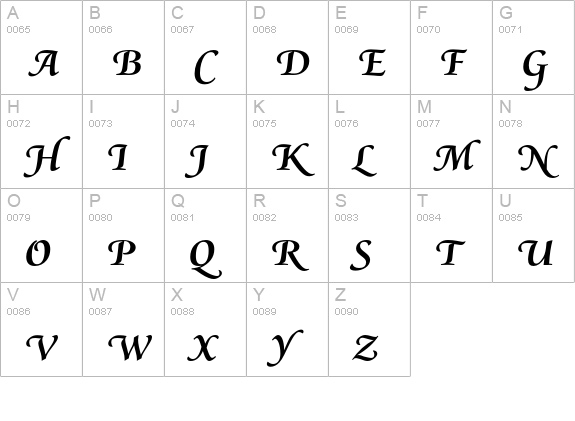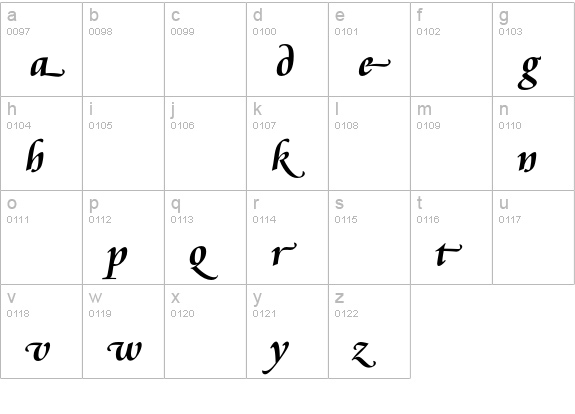
Cataneo Bold Swash Font Details
Cataneo Bold Swash is a strong, high-contrast variant in the Cataneo typeface family \xE2\x80\x94 well suited to headlines, attention-grabbing titles, and strong calls-to-action.
Cataneo Bold Swash is a striking and elegant font that exudes sophistication and charm. With its bold and distinctive swashes, this font is perfect for adding a touch of flair to any design project. The strong, yet graceful letterforms make Cataneo Bold Swash ideal for headlines, titles, and other prominent text elements. The contrast between thick and thin strokes creates a sense of drama and visual interest, making this font a versatile choice for both print and digital applications. And the best part? Cataneo Bold Swash is available for free download at FontsMarket.com! Whether you're a designer looking to add a touch of luxury to your creations or a business owner in need of a stylish branding solution, Cataneo Bold Swash is sure to make a lasting impression. Download this exquisite font today and elevate your designs with its timeless beauty and sophistication.